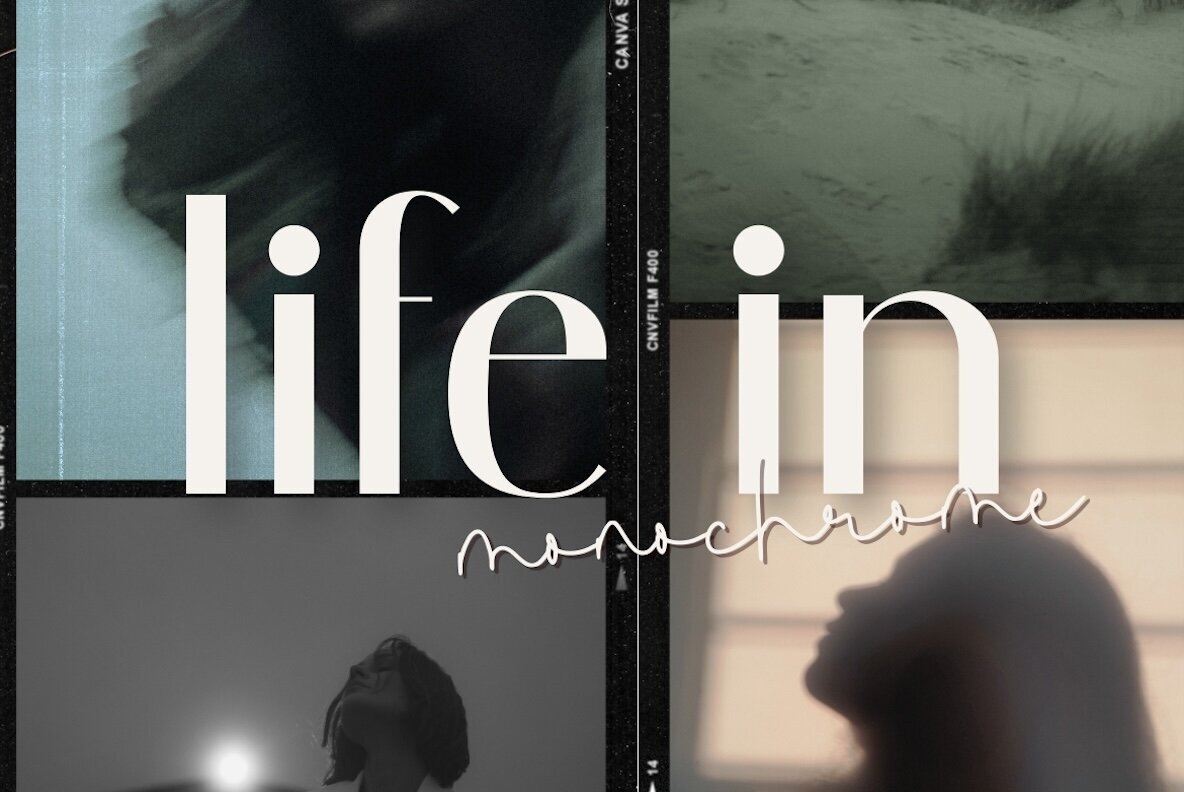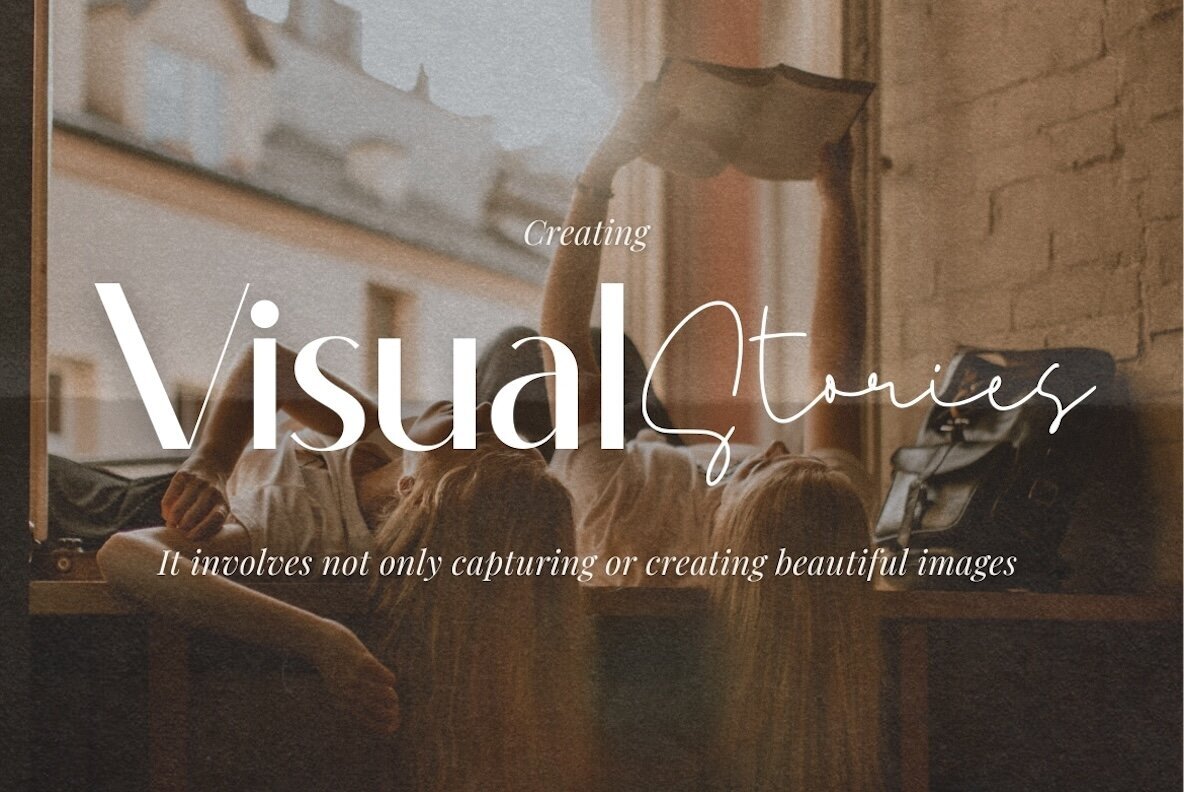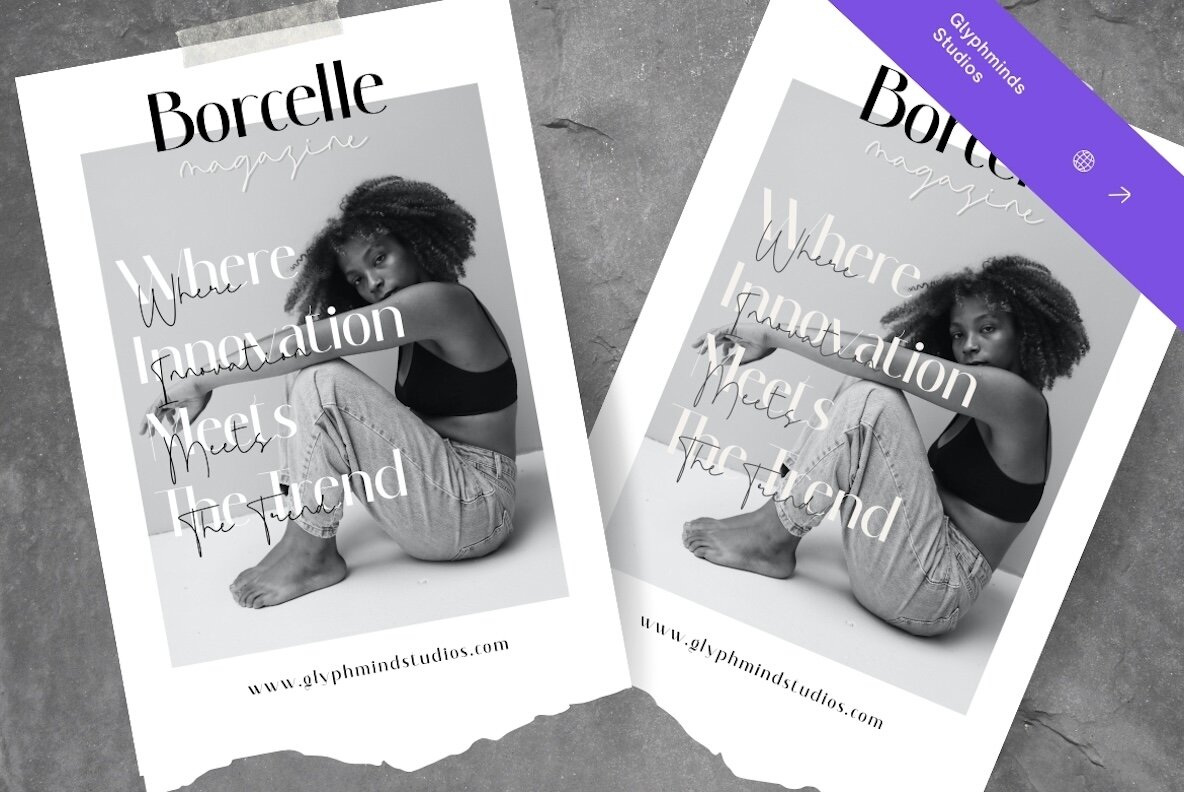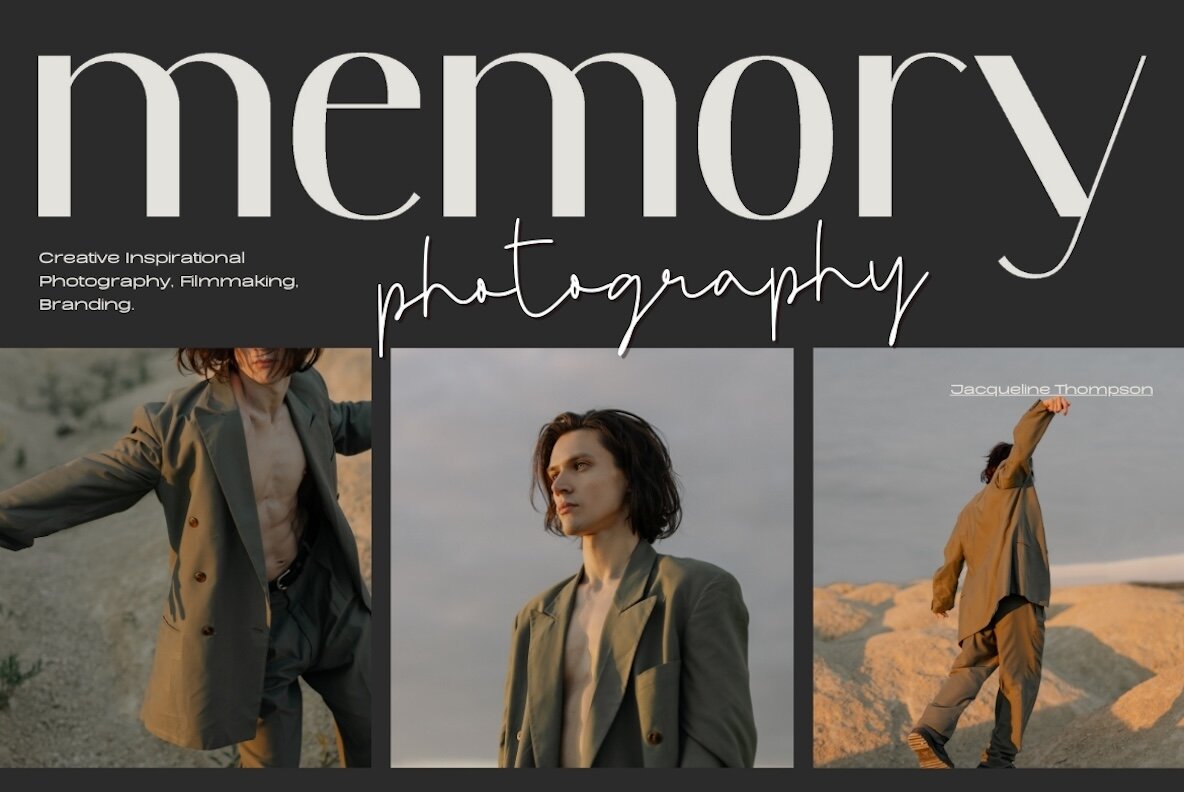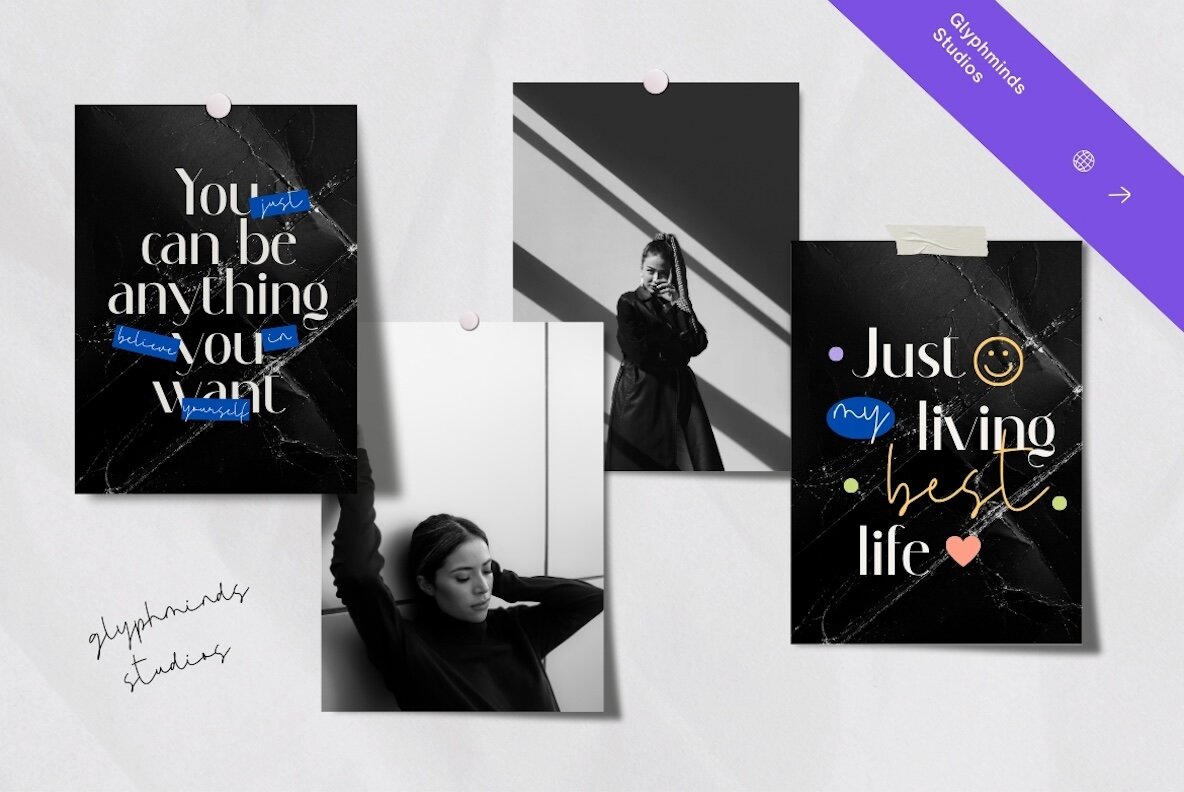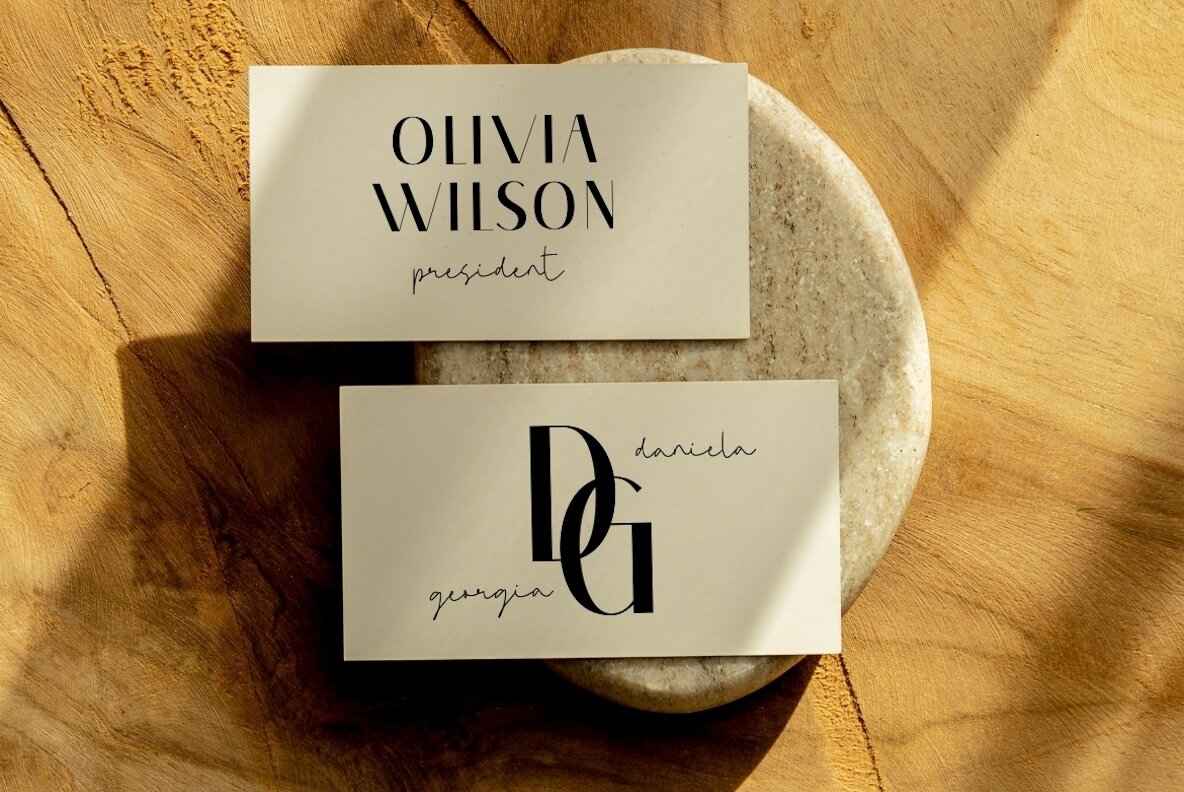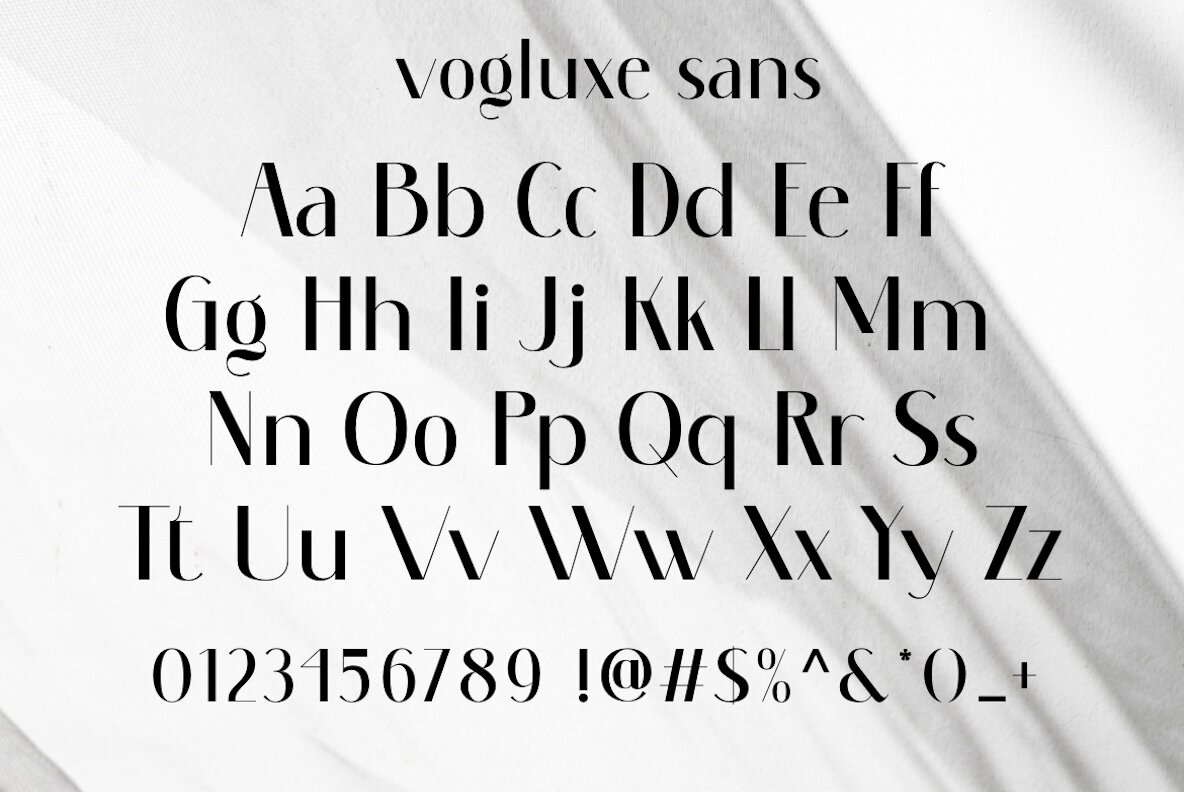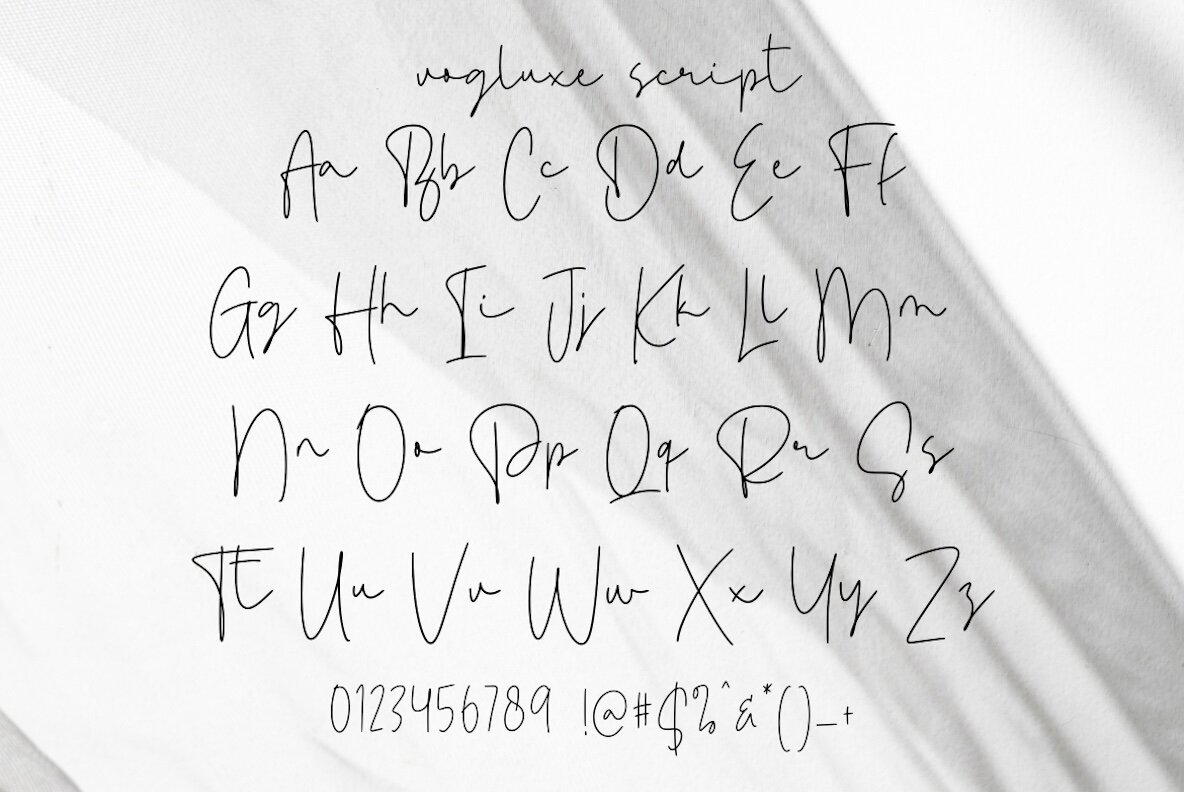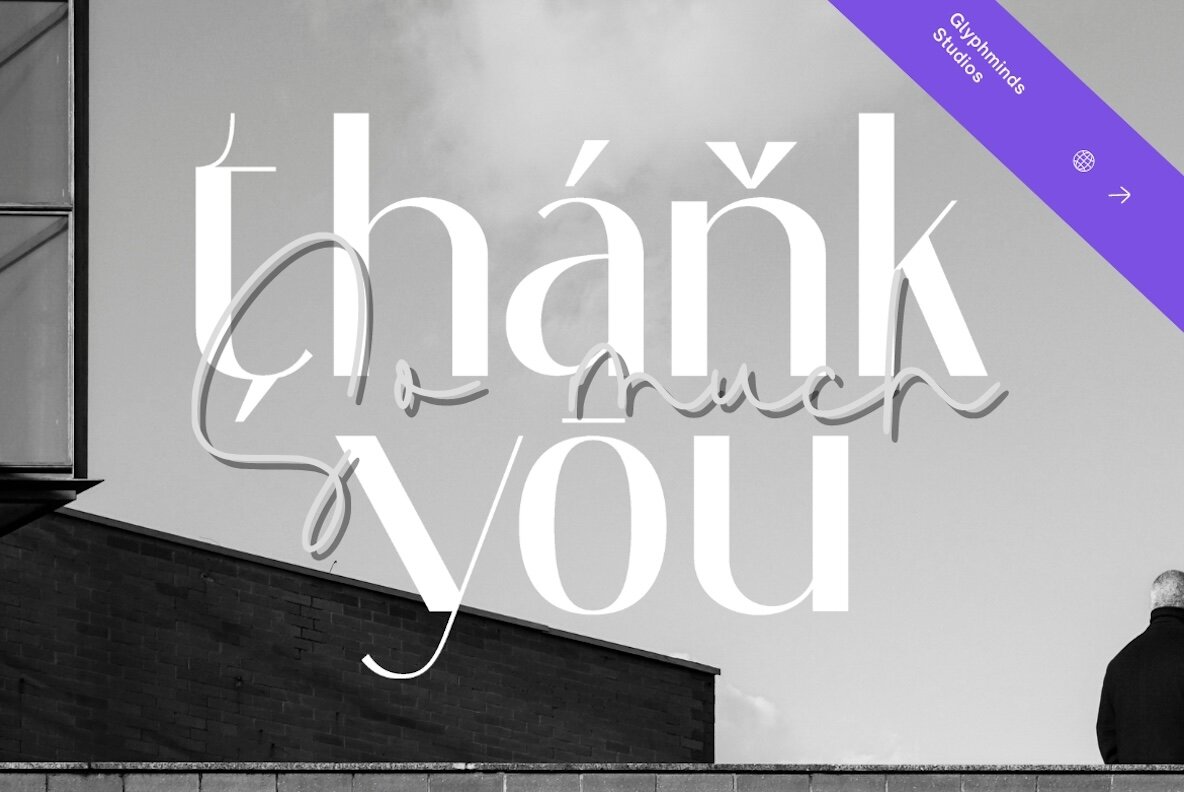
Vogluxe Font
Vogluxe offers a seamless fusion of elegance and modern sophistication with its premium font duo. This striking combination features a sleek sans-serif typeface paired with a chic script font, perfect for infusing luxury into your design projects. Vogluxe is suited to a variety of applications, including branding, invitations, logos, and social media graphics, offering both versatility and refined style.
Enhance your creative projects with Vogluxe, a font that provides a distinct and sophisticated touch to your work. This well-crafted font duo ensures your designs capture the timeless appeal that stands out in any field.